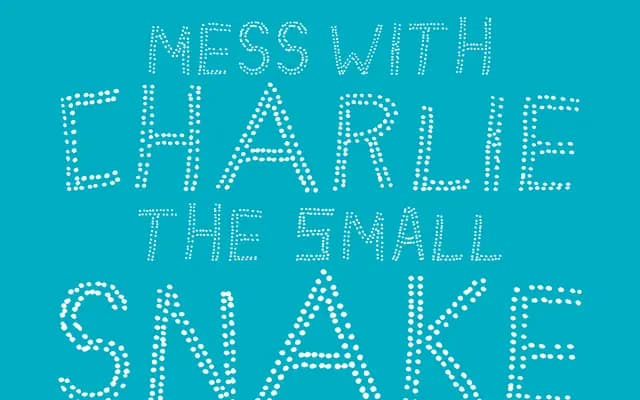
CA Trasher
Cape Arcona · Thomas Schostok
A single-weight display face by Thomas Schostok in which every letterform is built entirely from dots, with some uppercase characters offering alternative shapes.
Each glyph in CA Trasher is hand-constructed from dots, giving the family a rough, textural quality that sits firmly in the decorative display category. The 163-glyph set covers Western Latin encoding, with select uppercase letters providing alternate character shapes for added variety. Best suited to headlines, poster work or branding where a raw, handcrafted aesthetic is the point.
Classified by the foundry as Display Distressed; all letterforms are constructed from dots, giving the typeface a deliberately rough, handmade quality suited to display use only.